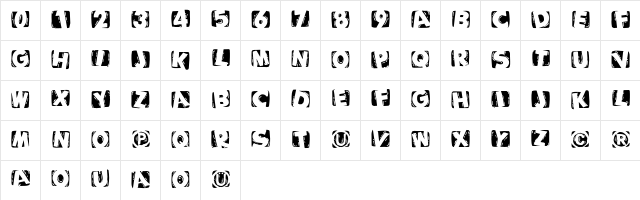
WoodcuttedCapsInvers Regular
Design Context for WoodcuttedCapsInvers Typeface
WoodcuttedCapsInvers taps into classic Western woodtype traditions — bold, characterful, and impossible to ignore.
Perfect for barbecue restaurants, country music branding, vintage poster design, and rustic packaging.
Font Pairing: Combine WoodcuttedCapsInvers with a simple slab or neutral sans — period-accurate companions reinforce the vintage feel without competing for attention.
Pro Tip: Pair WoodcuttedCapsInvers with aged textures or distressed backgrounds to amplify its vintage personality.